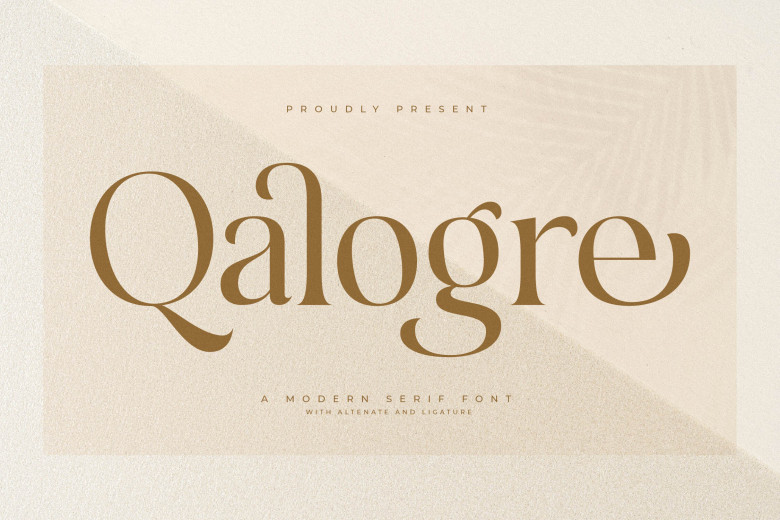
Qalogre Font
Qalogre Font from Storytype is an elegant yet modern serif font with its own distinctive style and contemporary appeal, suitable for creating sophisticated logos, book titles and film titles, clothing brand name design, magazines letters and quotes among other applications.
Qalogre Serif Font